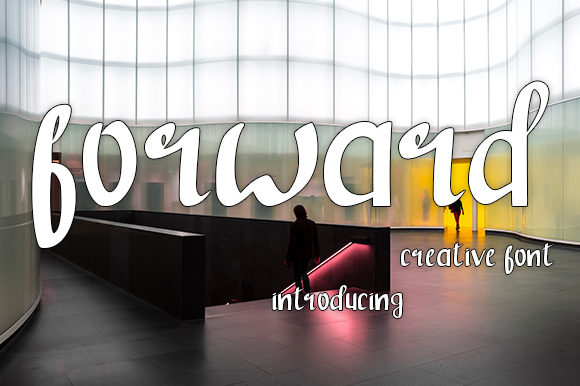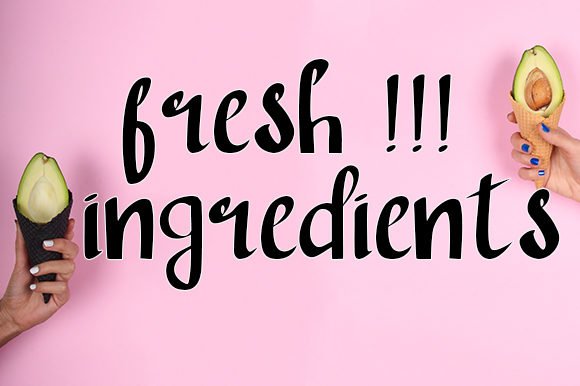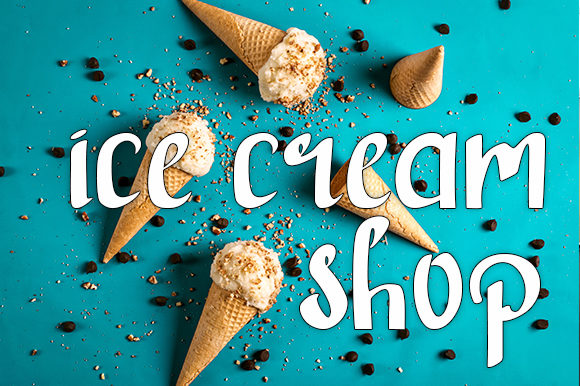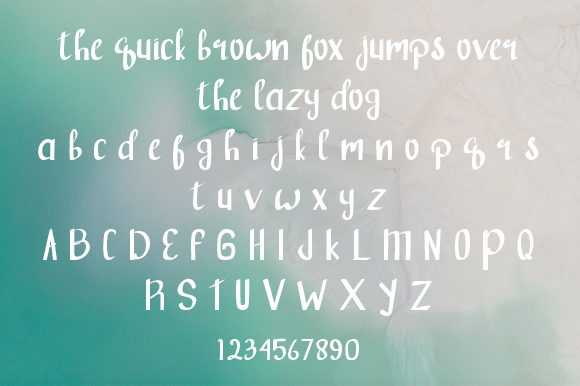
Forward Font
About Forward Font
Forward is a simple yet attractive script font featuring casual & beautiful letters. Get inspired by its unique appearance!